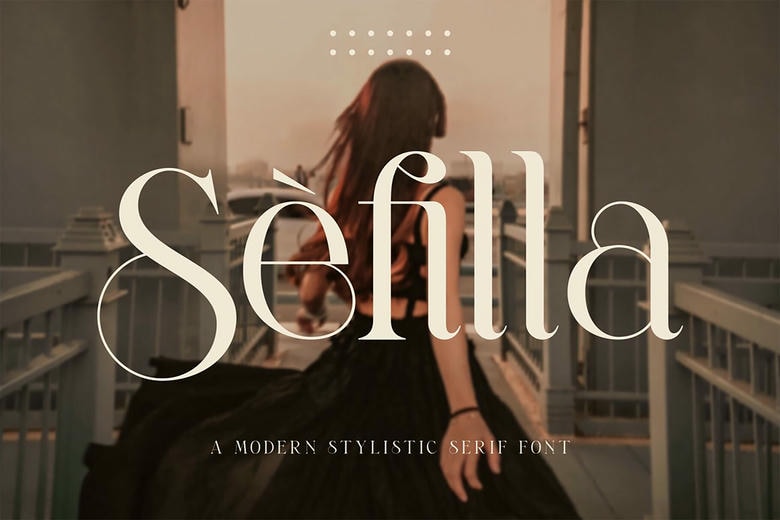
Sefilla Font
Sēfilla is a modern stylistic serif font, which is a mix of the older beauty and modern spice. It has elegant curves, heavy contrast, and elegant ligatures and works best in high-end branding, editorial, invitations, and fashion-focused projects.
The elegant appearance and artistic features of Sefilla provide an additional image of the eternal beauty to each design, and yet, this design is quite practical and multidimensional.
Sefilla Serif Font